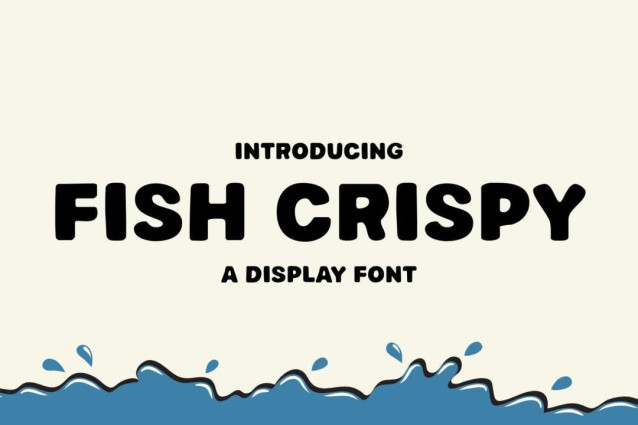
Fish Crispy Font
Fish Crispy Font is a chunky, comic, and cartoon display font. With its neat and joyful personality, this font will enhance any project you wish to create!